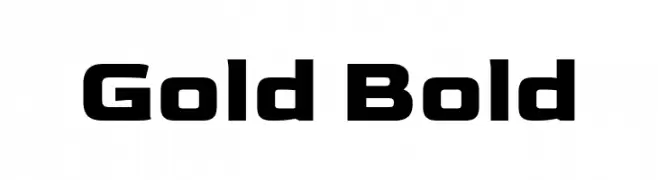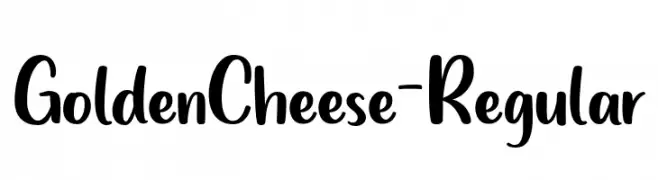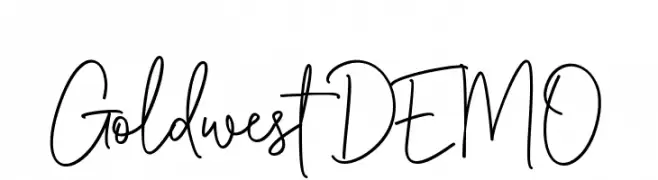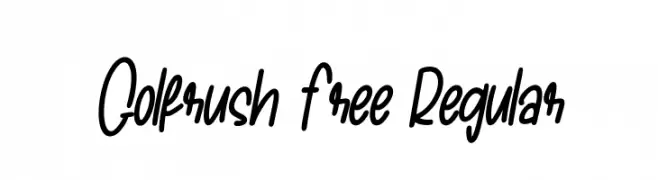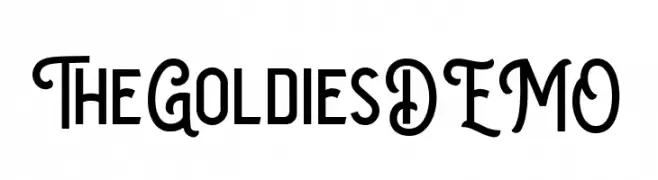
A fluid, cursive script font with elegant, interconnected letters.
A playful handwritten font with smooth curves and a casual style.
An elegant script font with flowing, cursive style and intricate swashes.
A playful and decorative font with whimsical uppercase letters and bold numerals.
A bold, geometric sans-serif font with a modern and assertive style.
A playful and elegant handwritten font with fluid strokes.
A modern sans-serif font with geometric shapes and uniform stroke width.
A graceful, handwritten script font with elegant, flowing lines.
A playful, handwritten font with tall, narrow letterforms and a casual, modern style.
A playful, handwritten script font with bold, rounded strokes and a dynamic flow.